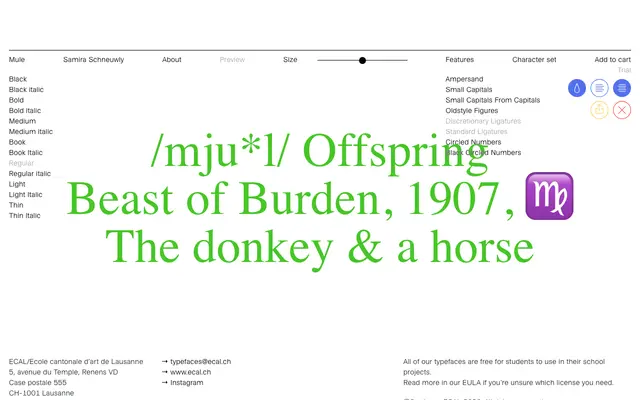
Mule
A warm text serif by Samira Schneuwly drawn from an early 20th century Inland Type specimen, reinterpreted for contemporary small-size use.
Rooted in the 'Specimen Book and Catalog' of the American foundry Inland Type, Mule preserves the spirit of its source while correcting its period flaws. Concise serifs, rounded forms and controlled contrast make it well-suited to newspaper and book settings at smaller sizes, though the details hold up in display use too. Released in 2022, it sits comfortably in editorial contexts where warmth and legibility are equally important.
Mule draws from an early 20th century Inland Type specimen, exhibiting concise serifs, optimised contrast and warmth consistent with transitional serif conventions adapted for text use.